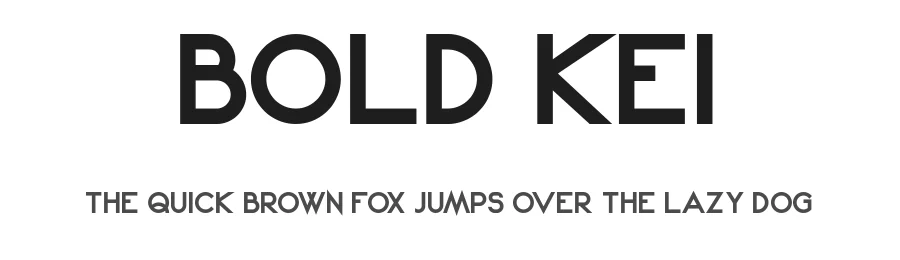
Kei - Friendly & Playful Display Font
Kei is a friendly, clean, and playful display font that serves as the foundation of the "Kei" series. Its simple yet charming letterforms make it incredibly versatile for any design that needs an approachable and "happy" personality without being overly decorative.